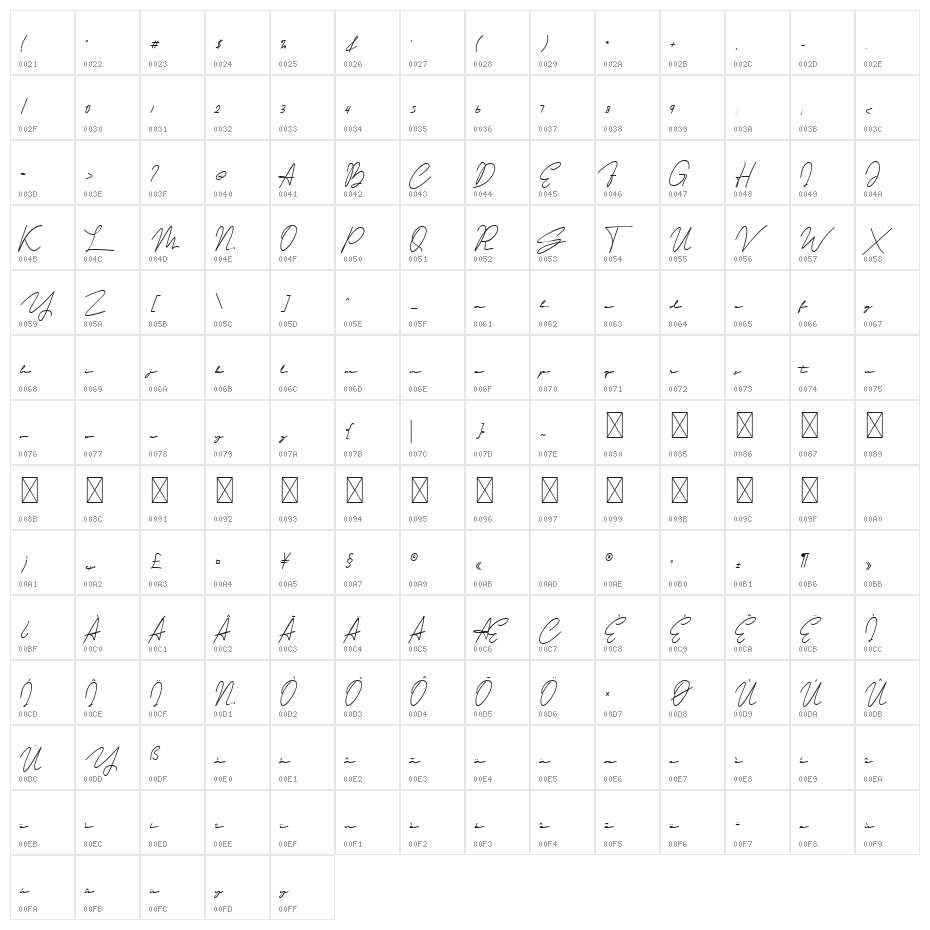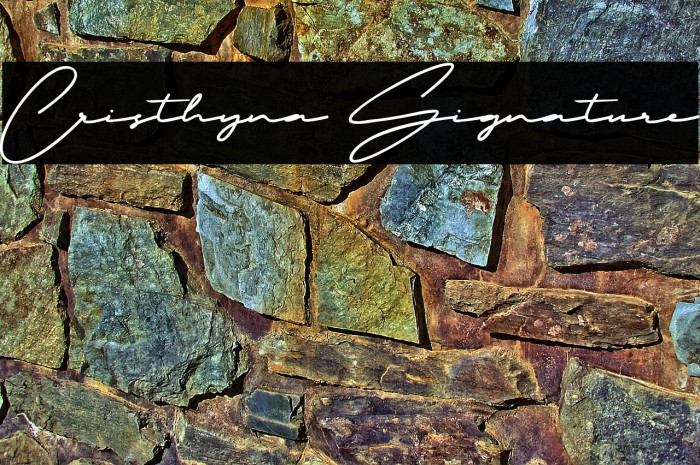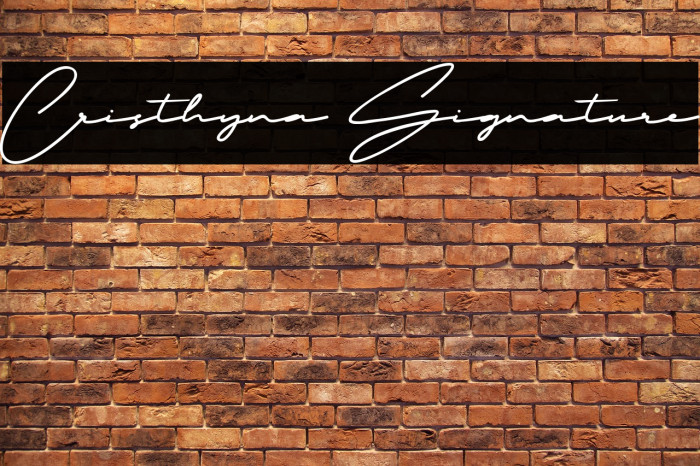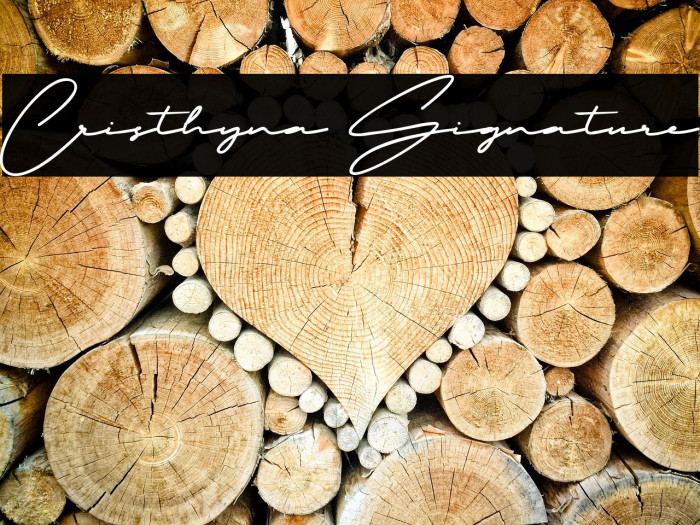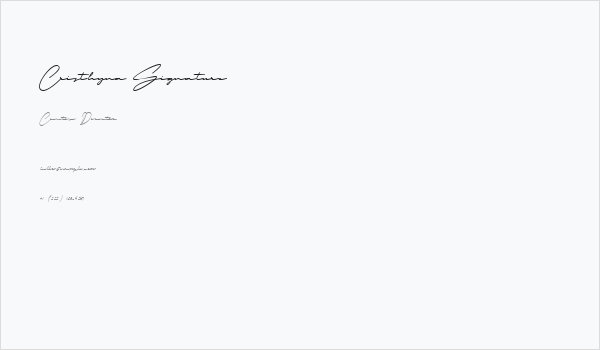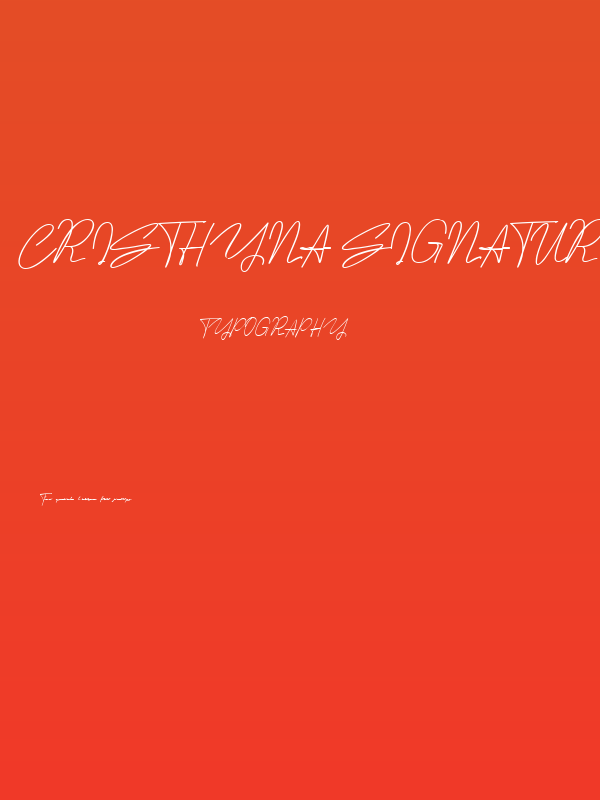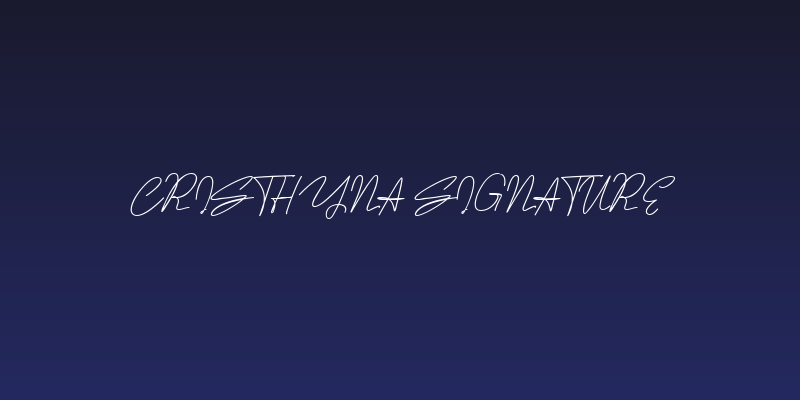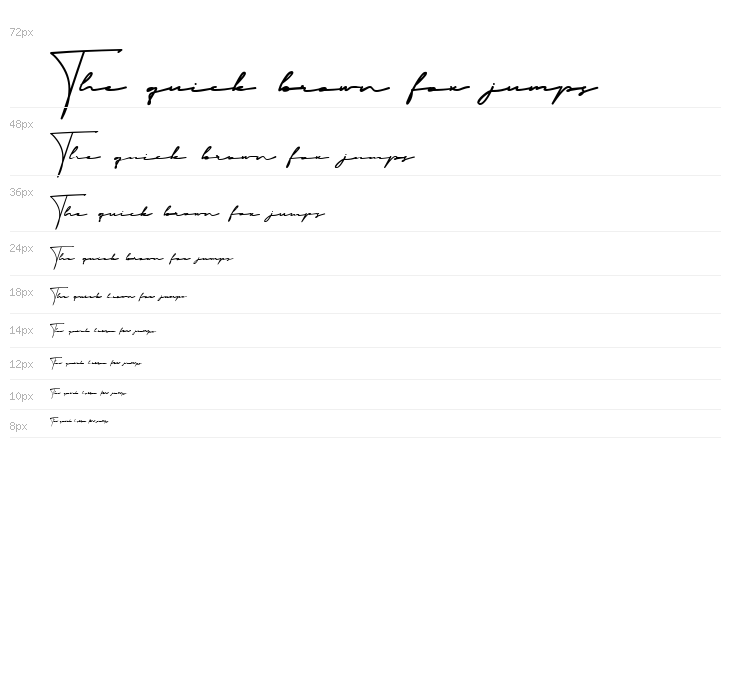
Cristhyna Signature Font
Cristhyna Signature Description
This font exudes elegance and sophistication with its fluid, cursive style. The uppercase letters are characterized by their tall, slender forms and graceful loops, creating a sense of movement and flow. The lowercase letters maintain a consistent slant, enhancing the script's handwritten appearance. Numbers and special characters are seamlessly integrated, retaining the same flowing aesthetic. This font is perfect for adding a personal touch to any project, with its delicate strokes and refined curves making it ideal for formal invitations, branding, and artistic designs.
| Overall Style | Elegant, Handwritten |
| Use Case | Logos, Invitations, Artistic designs |
| Proposed Projects | Ideal for wedding invitations, branding, logo design, and artistic projects requiring a personal touch. |